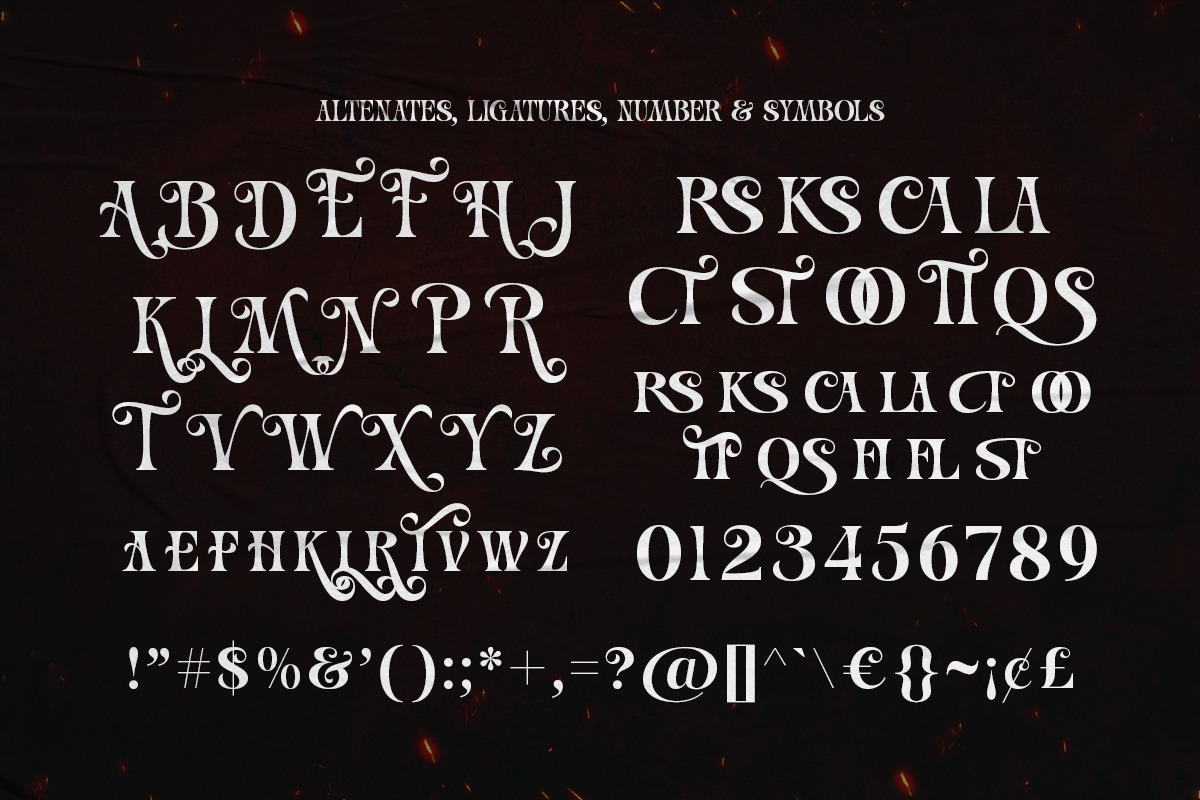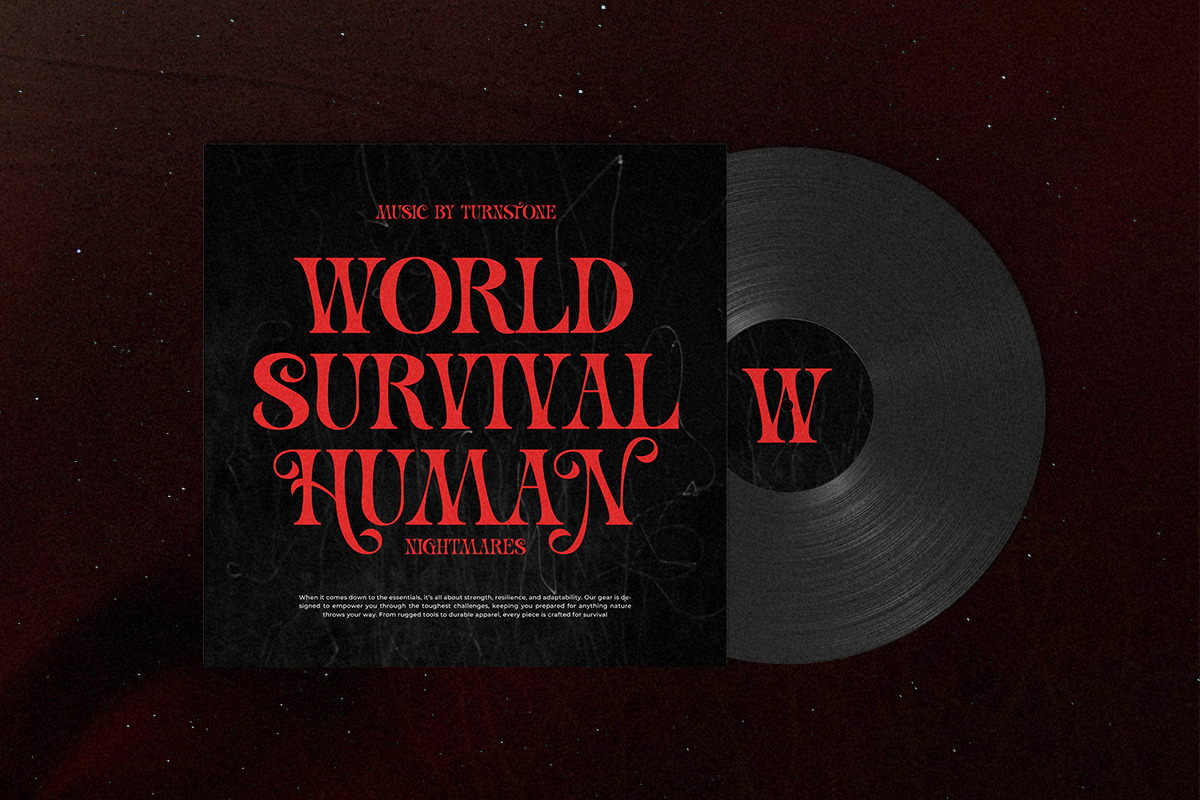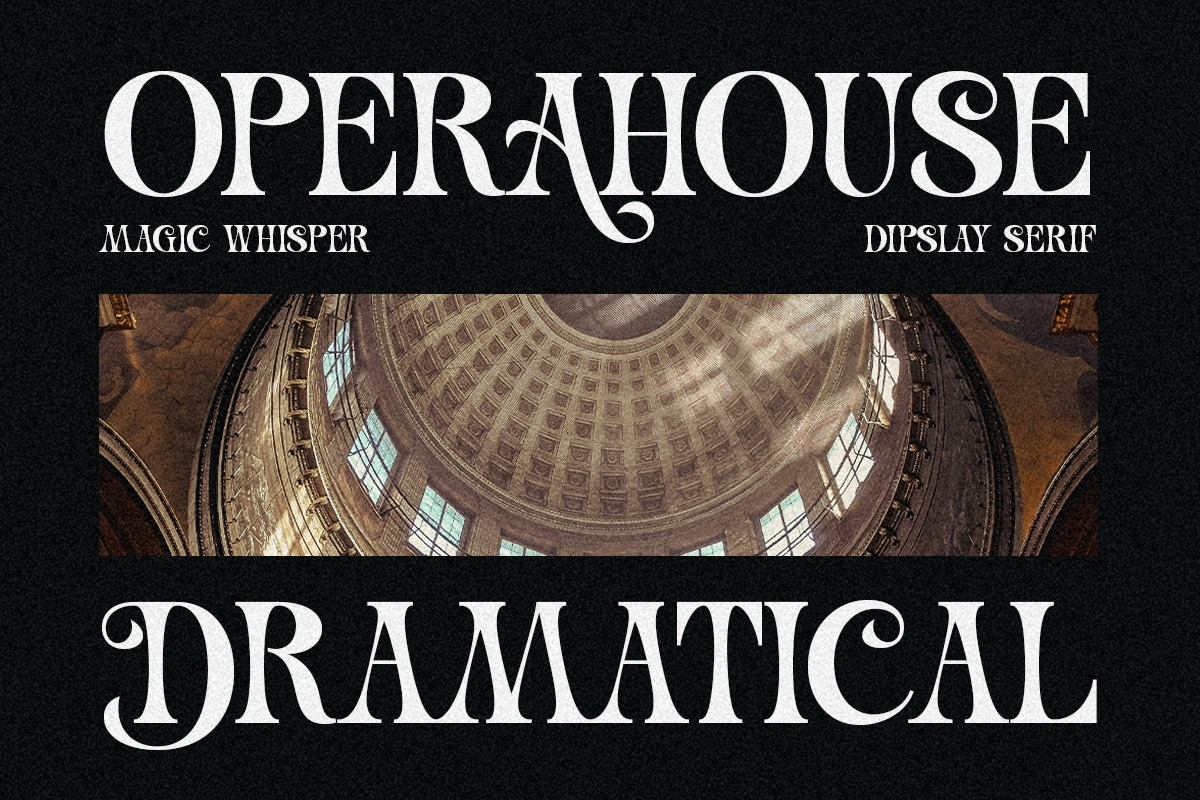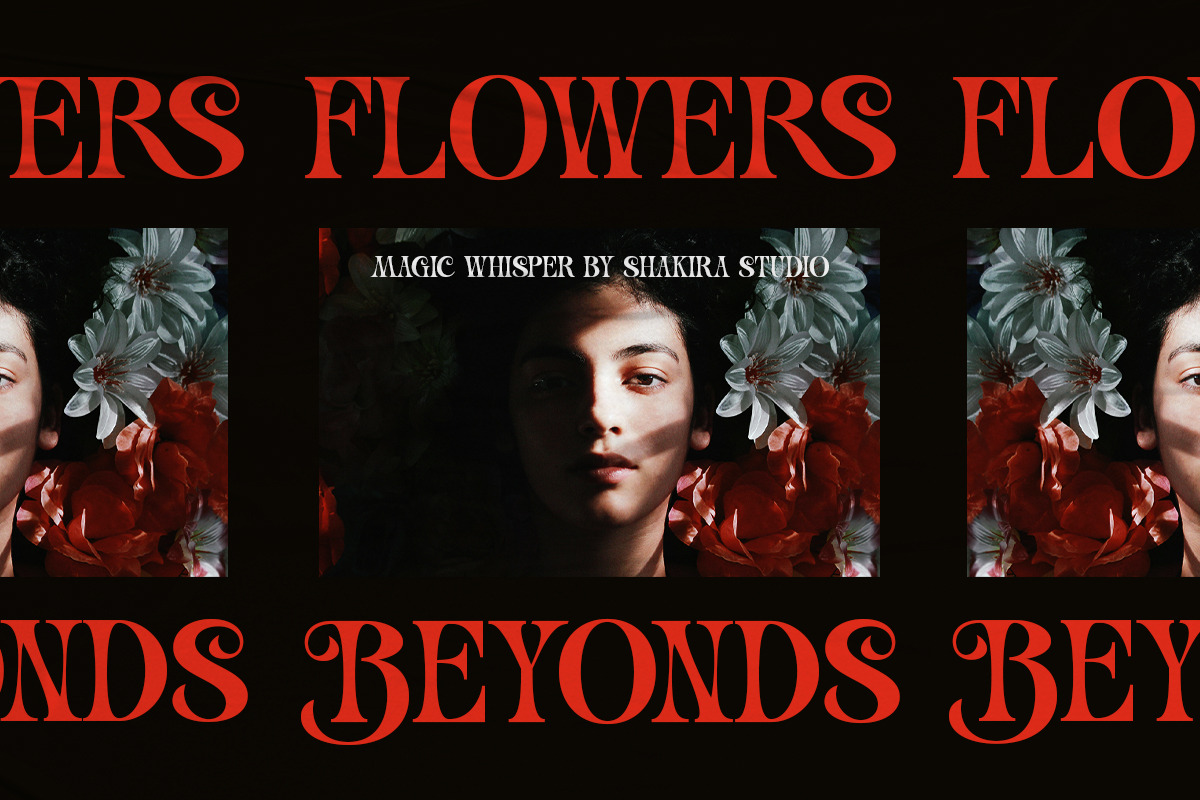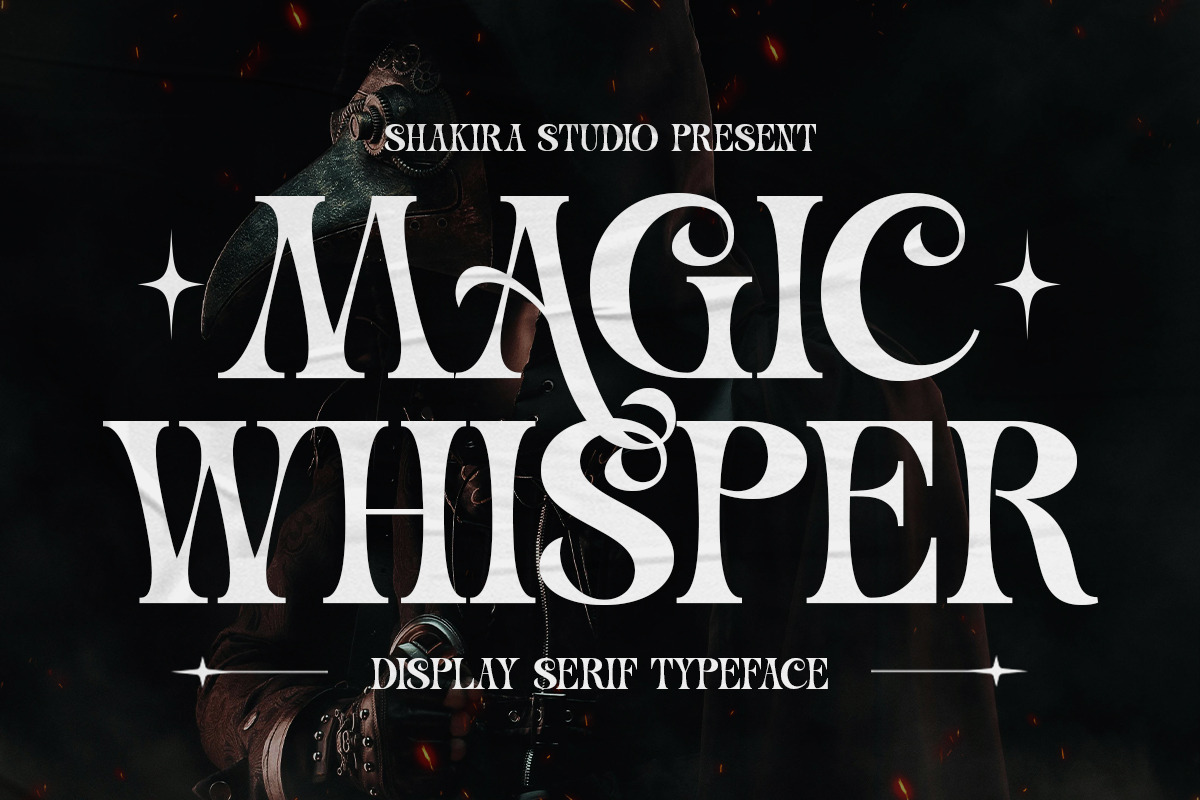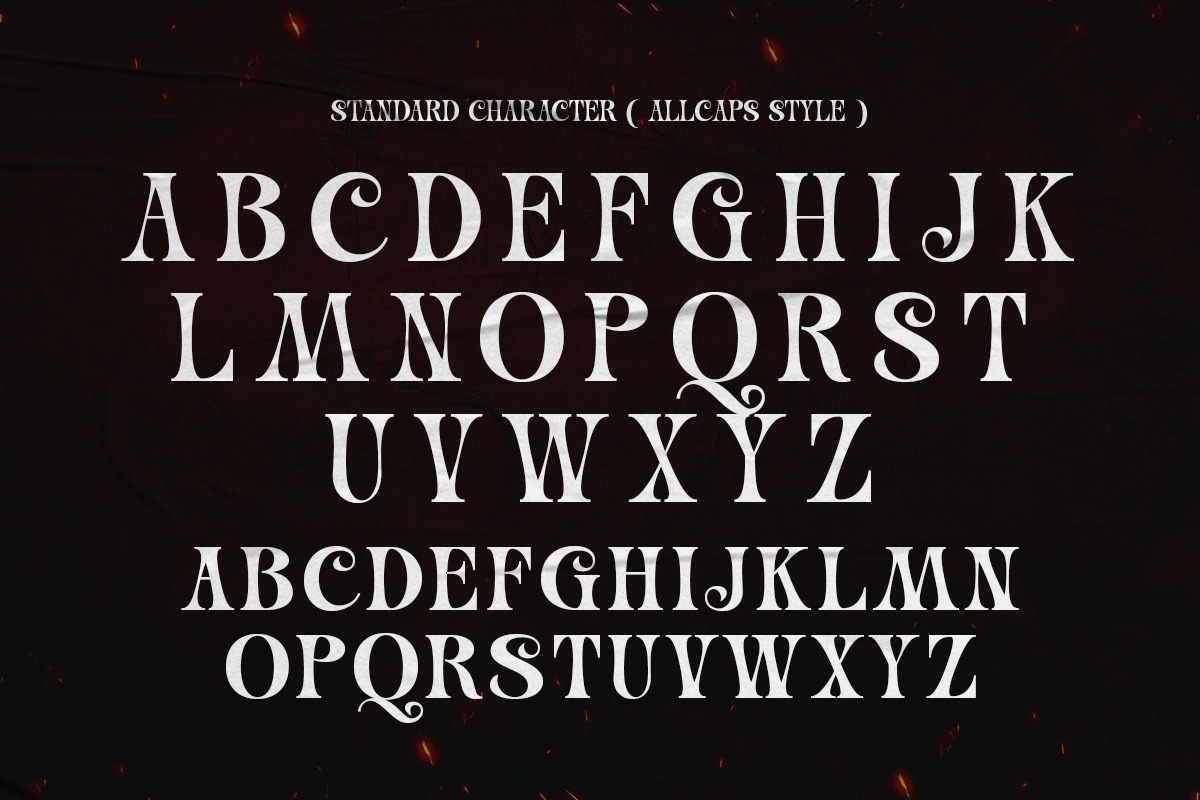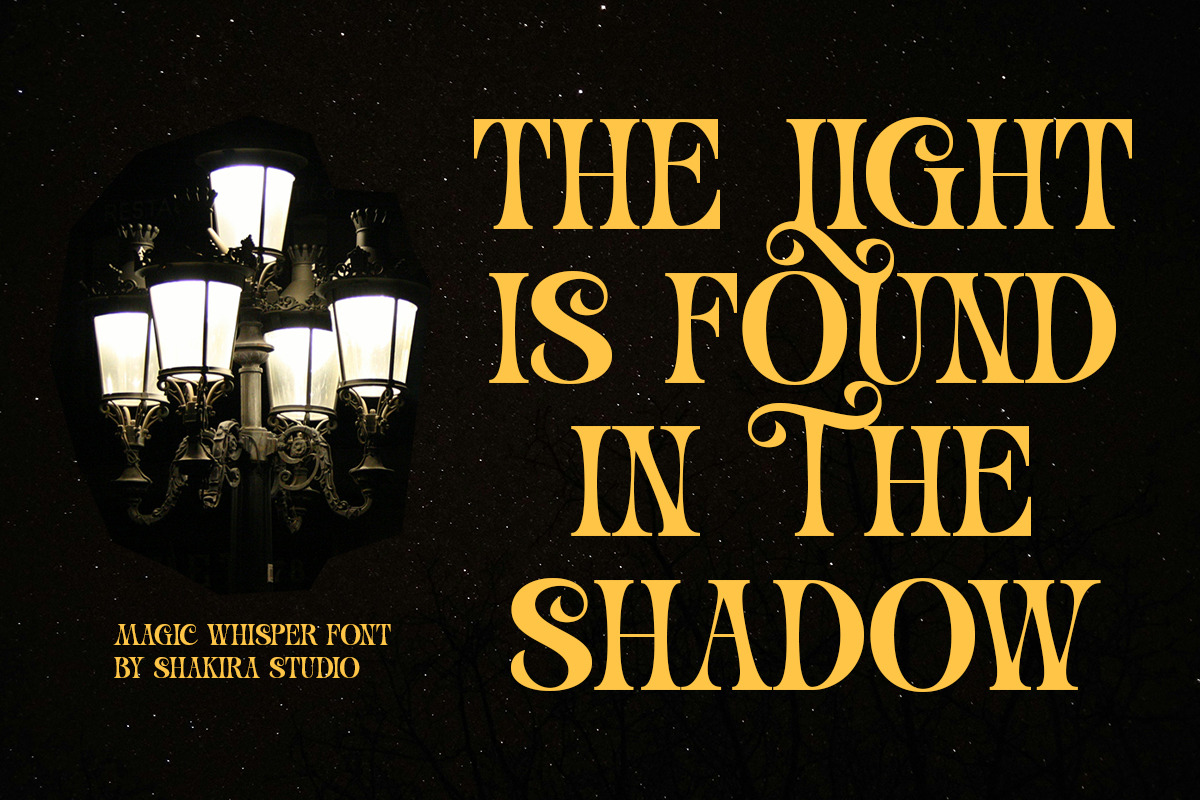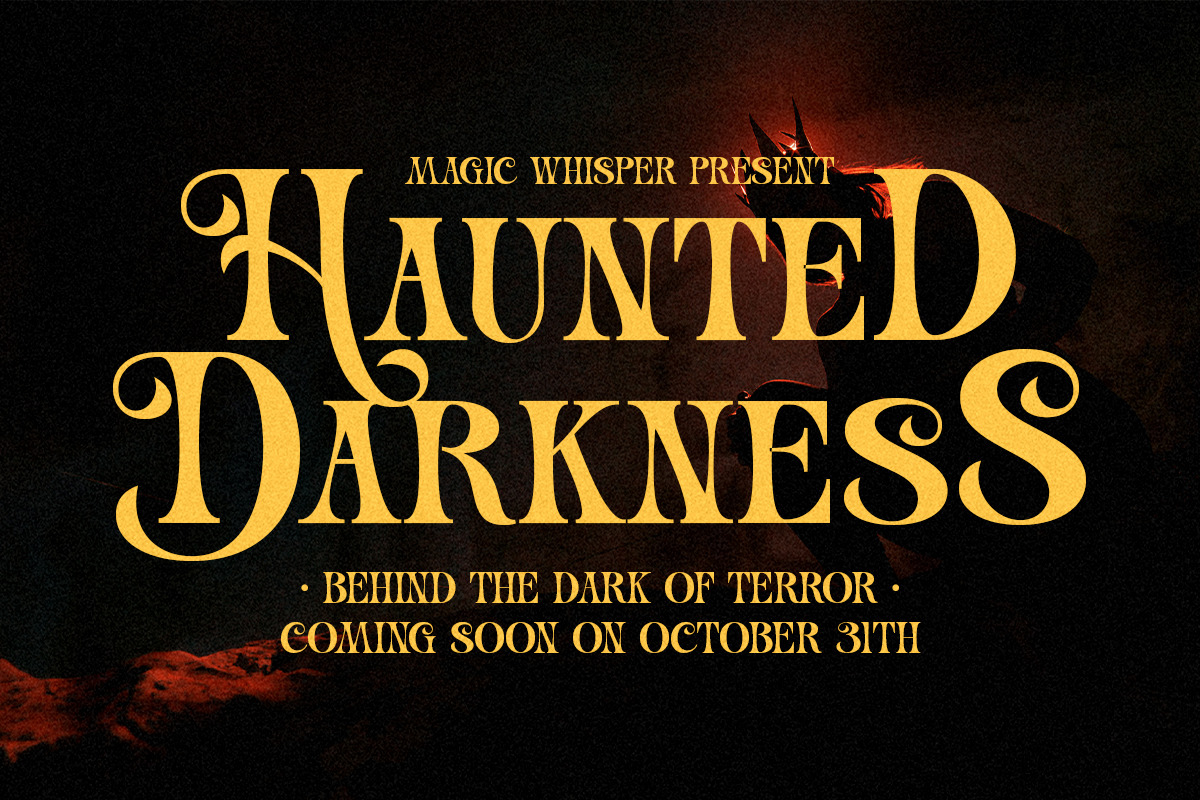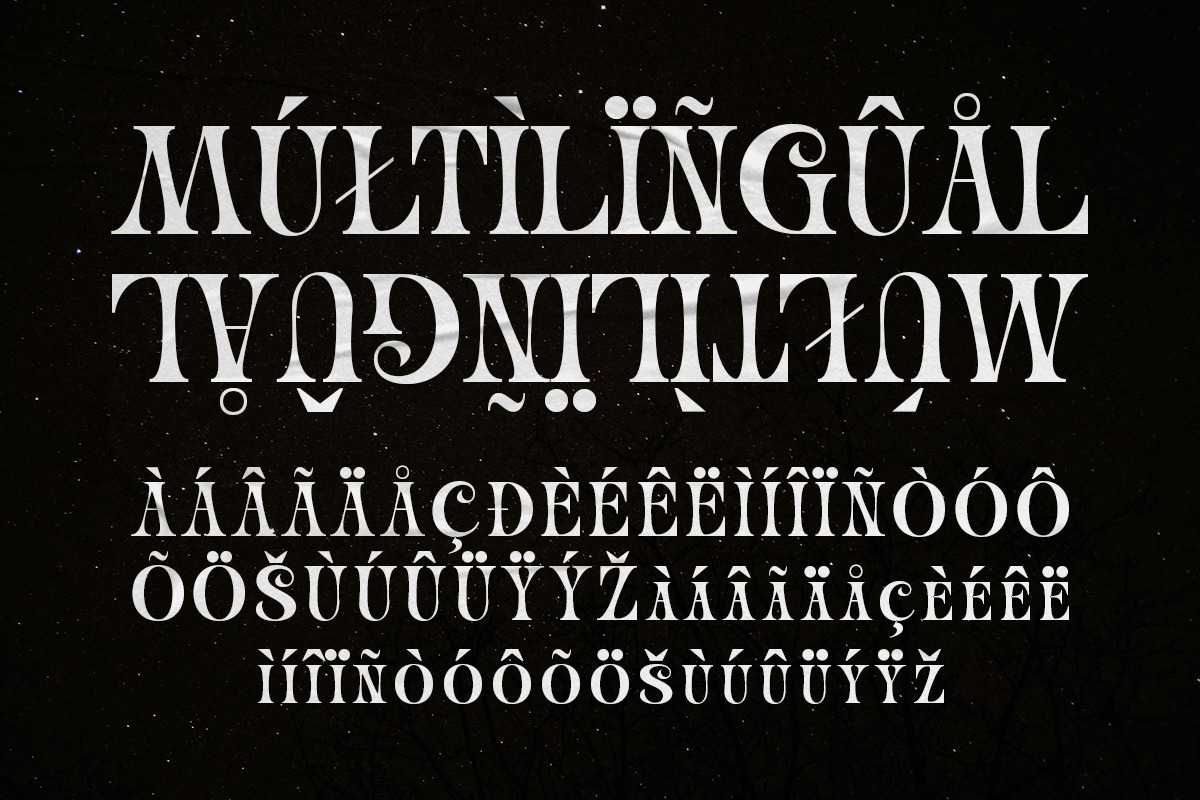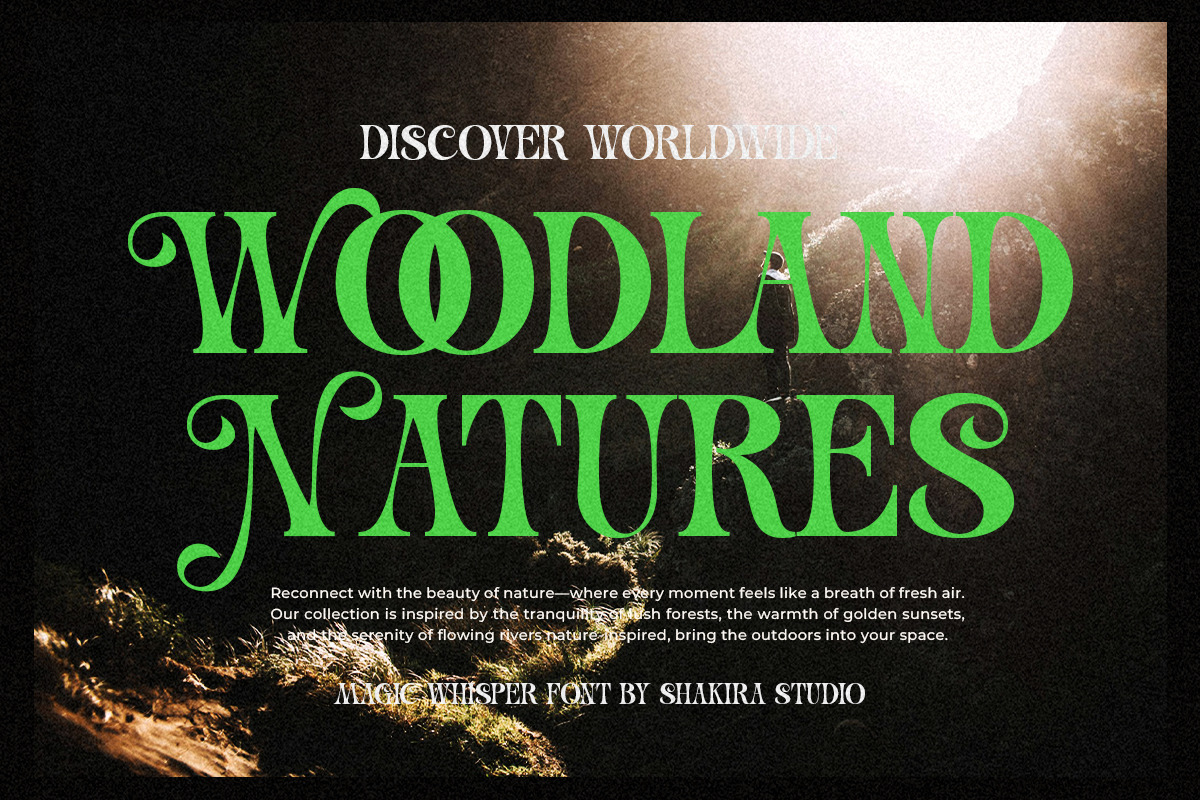
Magic Whisper - Dramatic Serif Font
"Introducing Magic Whisper, a dramatic serif display font that exudes elegance and mystique. With a bold Regular version, stylish alternates, and ligatures, this typeface is designed to elevate any project—whether it's for branding, posters, or editorial designs. Perfectly blending vintage charm with modern aesthetics, Magic Whisper is a versatile and powerful tool for creatives who seek to leave a lasting impression. Unlock the magic in your designs with this bold and unique typeface."
- Opentype features ( ligature, alternate )
Multilingual character supports : (Afrikaans, Albanian, Catalan, Croatian, Czech, Danish, Dutch, English, Estonian, Finnish, French, German, Hungarian, Icelandic, Italian, Lithuanian, Maltese, Norwegian, Polish, Portuguese, Slovenian, Spanish, Swedish, Turkish, Zulu)